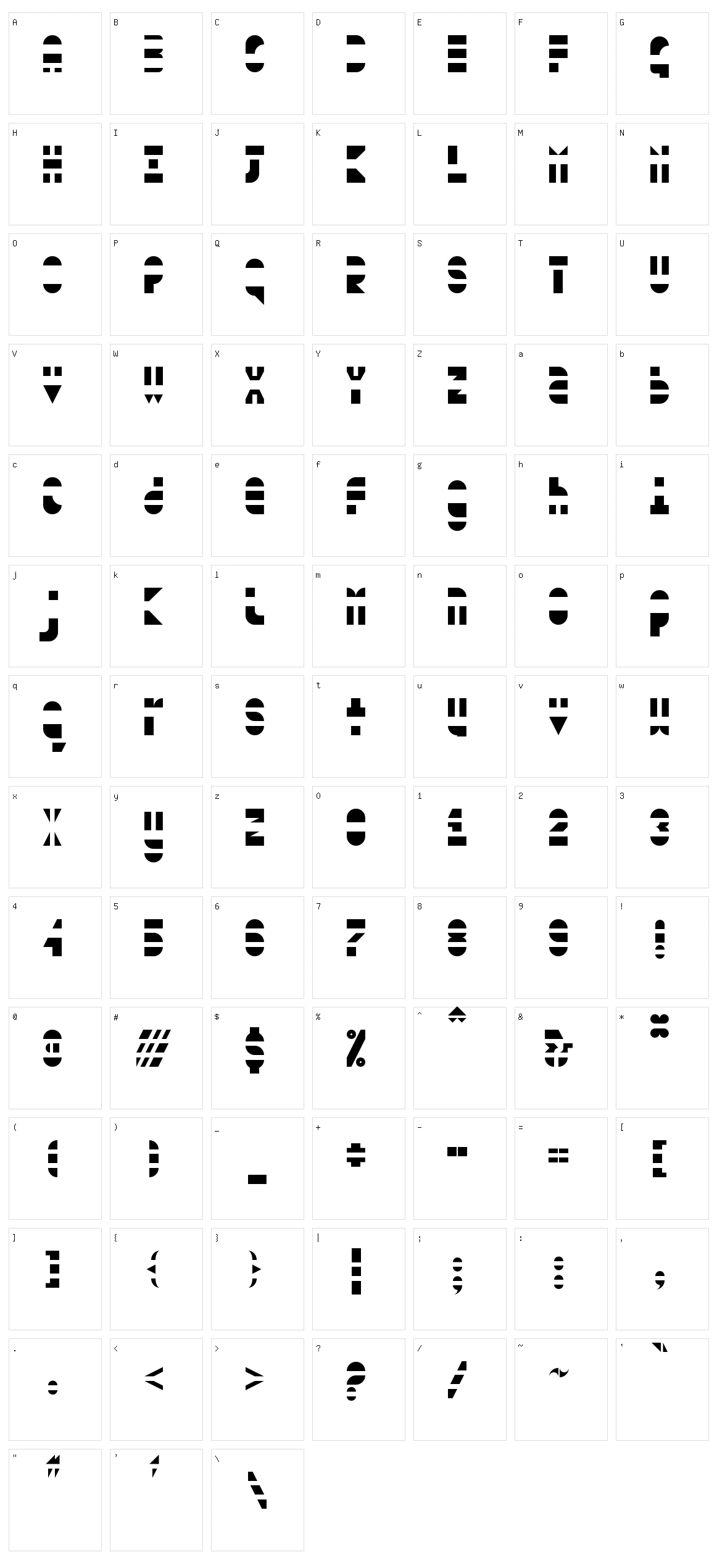
Blown Out
This is an art font that will lend itself well to logo design. The font relies on the negative space of a font and exploits it. Accents and punctuation follow the same "Blown Out" theme, but is also bloated in order to communicate the symbol desired.
Alone, the individual glyphs do not look like a normal character and likely will not be recognizable until used alongside other characters in words and sentences, and then everything becomes readable as the logic in our mind creates the shapes we know as letters, numerals and punctuation, despite the negative space.
Blown Out was originally submitted to Google Fonts on April 10th, 2018. I noticed that the "<" & ">" (less than & greater than angle bracket signs) had somehow been replaced with strange fonstruction 'bricks', or perhaps just overlooked somehow, so I corrected the font and I think I may have made the global spacing a bit tighter. The finished, corrected development font archive was then resubmitted to Google Fonts automatically via the FontStruction bot on April 11th, 2018.
Update: January 12th, 2019 (Glyph count: 219)
I had experimented with the kerning on this one (as it did start out as an experimental font). I updated this version with more traditional kerning. To demonstrate, I included the screenshot of my kerning work (and the character combinations kerned).
I have a fondness for this font, now. I have also regenerated all the other font sample presentation images included to reflect this new, January 2019 updated version.
I am currently classifying this font as:
'Abstract' 'an Art Font' 'Minimalistic' 'Logotype' 'Display Font' 'a Novelty Font' 'Fun' and 'Decorative'
Because of its design, it can even be thought of as a stencil style font.
It is also freeware, a desktop font, a web font, a supposed sans serif with a heavy or black weight.
I personally think of Christmas tree decorations when I see it, someone else said it reminded him of toys on Christmas morning.